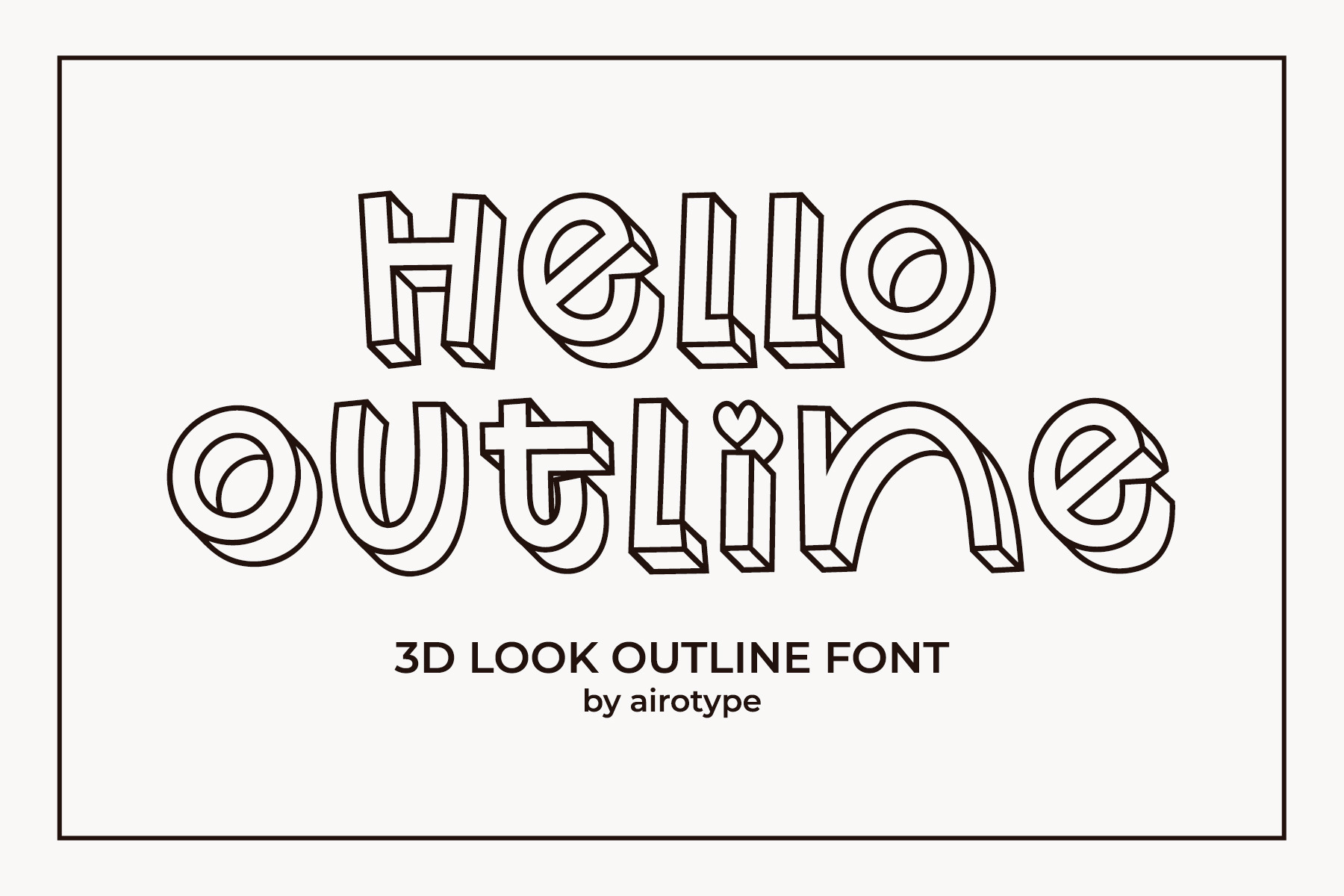
Hello Outline - Cute Outline 3D Font
Hello Outline is outline 3D font with fun and cute vibes.
This is decorative font from my other font, White Spring font (the solid version)
Hello Outline is pretty and quirky font for design with cute and playful theme, such as back to school design, birthday invitation, notes, t-shirt, crafting, sticker, planner, and many more.